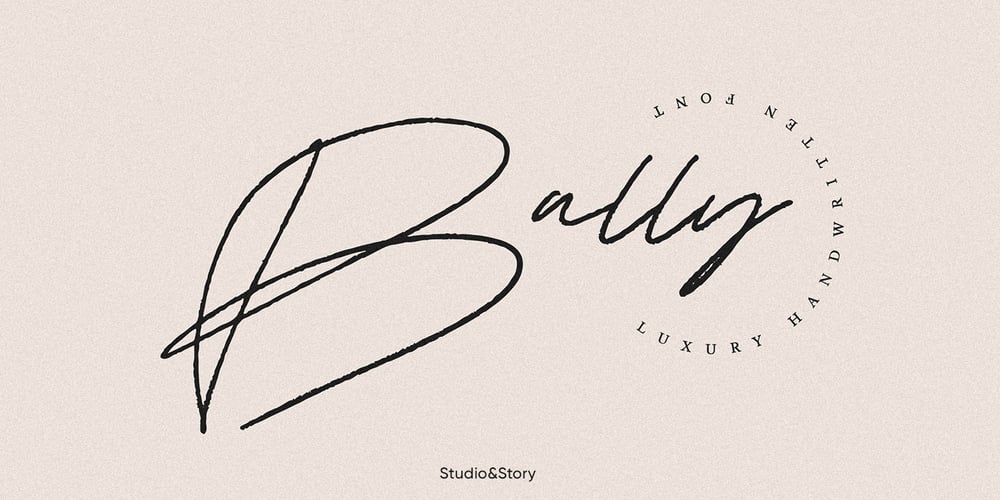
Bally
Bally font
Bally Font Family was designed by Michael Mervinetsky and published by Studio&Story. Bally contains 1 styles and family package options. Bally is is a hand-written Script font ,It’s a mix between a luxurious and fashionable, Combining texture and movement it creates a readable and clear message. Bally can work as a signature font but also understandable for longer texts like classic script font. The inspiration was minimalism so it could work best with any of your projects.Created for beautiful logos, Branding projects, Posters, Blog posts, Social media, Campaigns, Advertising, Web design and more!Here is what you get :bally • A hand-made script font containing upper & lowercase characters, numerals and large range of punctuation. superfast Include multilingual support: English, Italian, French, Polish, German, Swedish, Spanish, Dutch, Portuguese, Norwegian, Malaya, Indonesian, Finnish, Filipino. Malaya . feel free to send me a message ;)Studio&Story Instagram! https://bit.ly/2Di49cv :)Thank you!